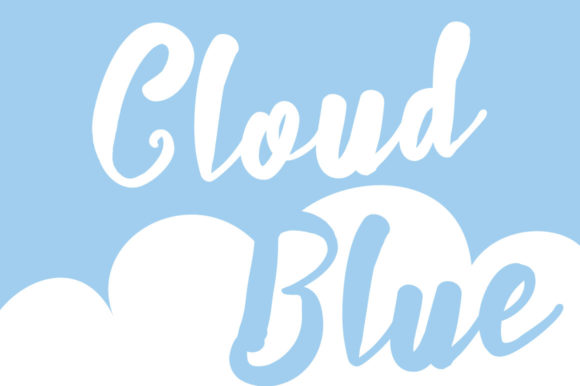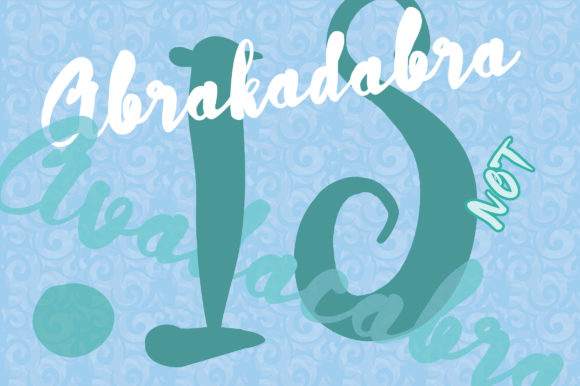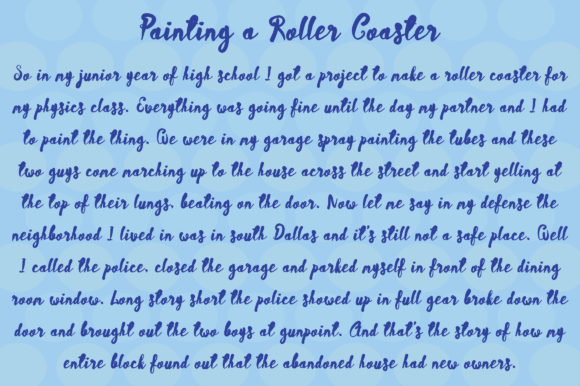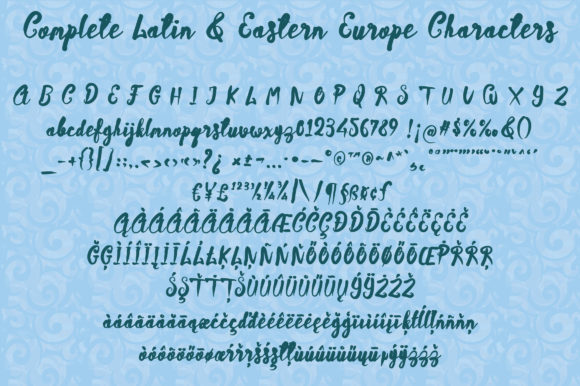
Introduction to Sambalado Script Font
Have you ever been stuck on a creative project, searching for the perfect font to bring your design to life? I know I have. The blank page stares back at me, and I’m left wondering where to start. But then, like a breath of fresh air, I stumbled upon the Sambalado Script Font. This adorable brush script font is a game-changer for any design project.
With its bold weight and textured shape, the Sambalado Script Font is perfect for adding a personal touch to wedding invitations, product packages, logos, titles, flyers, and much more. As a designer, I can appreciate the value of having high-quality design resources like this font at my fingertips. Whether you’re working on a free download or a paid project, the Sambalado Script Font is sure to elevate your design to the next level.
Key Features of Sambalado Script Font
- Unique, hand-drawn design perfect for creative projects and artistic expressions.
- Designed to add a touch of elegance and sophistication to any creative project, making it a valuable design resource.
- Perfect for use in logos, branding, typography, and other design elements where a unique, handwritten style is desired.
Honest Review: Sambalado Script Font
I recently stumbled upon the Sambalado Script Font, and I must say, it’s been a game-changer for my creative projects. The font is perfect for adding a touch of elegance and sophistication to any design. It’s also completely free to download, making it an excellent resource for designers on a budget.
One of the standout features of the Sambalado Script Font is its high quality. The font is beautifully crafted, with intricate details and a smooth, flowing design. I particularly appreciate the transparent background option, which makes it easy to customize and integrate with other design elements.
- ✨ Elegant and sophisticated design
- ✨ High quality and detailed font
- ⚠️ Limited font sizes and weights available
- ⚠️ May not be suitable for use in small text
Overall, I’m thoroughly impressed with the Sambalado Script Font. It’s a fantastic design resource that’s perfect for adding a touch of class to any creative project. With its high quality design and transparent background option, it’s definitely worth checking out.
Common Use Cases for Sambalado Script Font
The Sambalado Script Font is ideal for wedding invitations, event signage, and other creative projects that require a touch of elegance and sophistication. Its beautiful script style makes it perfect for creating memorable and eye-catching designs.